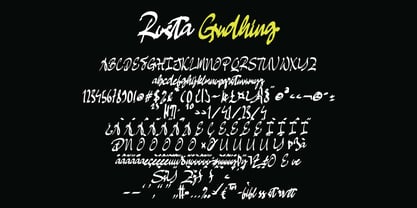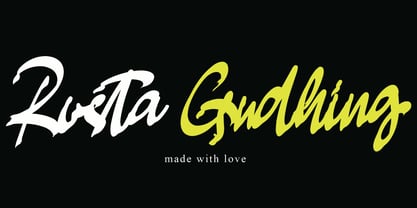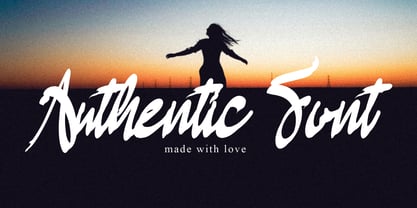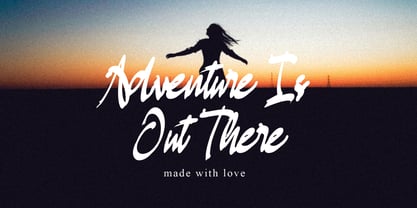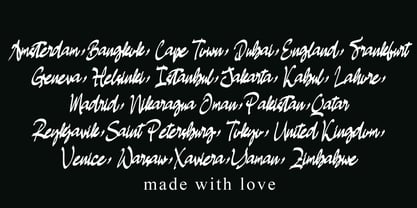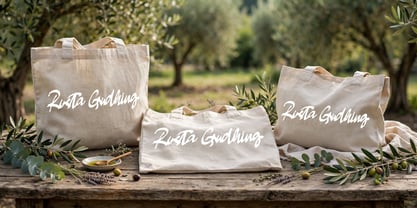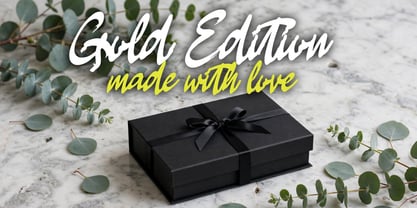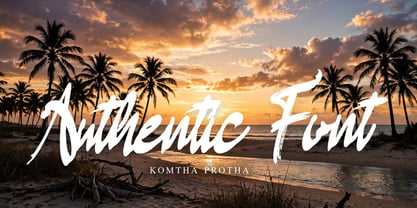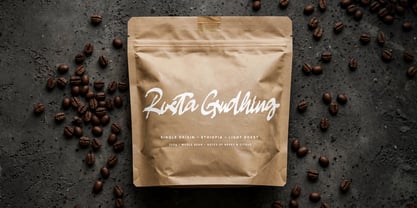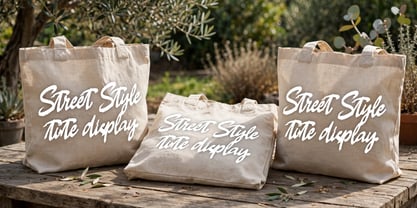
Rosta Gudhing
Encounter the irresistible magnetism of Rosta Gudhing, a visually stunning blend of modern design and charming hand-crafted calligraphy. This standout font seamlessly exudes unparalleled elegance, injecting classic character into every use. Its notable versatility makes Rosta Gudhing a powerful tool for transforming your digital landscape into a breathtaking mural of creativity, enhancing your blog with its distinctive style or bringing a touch of typographic sophistication to your personal musings. Fall under the beguiling spell of Rosta Gudhing and its infinite grace. Whether it illuminates tranquil personal spaces or invigorates vibrant photographs, it has the capability to enhance and magnify every aspect it decorates, generating captivating audience attention. Engross yourself in the mesmerizing appeal of Rosta Gudhing, your trustworthy guide into a universe brimming with fresh concepts and bewitching aesthetics. Turn Rosta Gudhing font into the spark that ignites your creativity, transforming your innovative ideas into remarkable digital masterpieces to inspire awe.